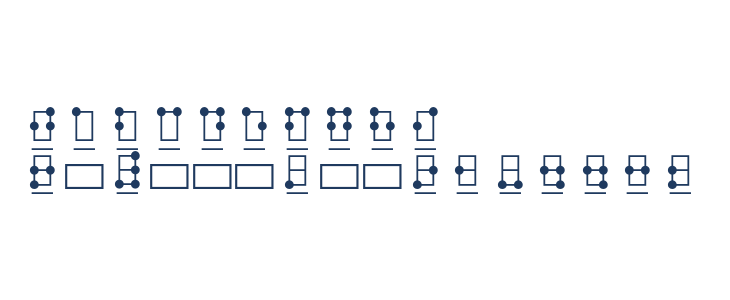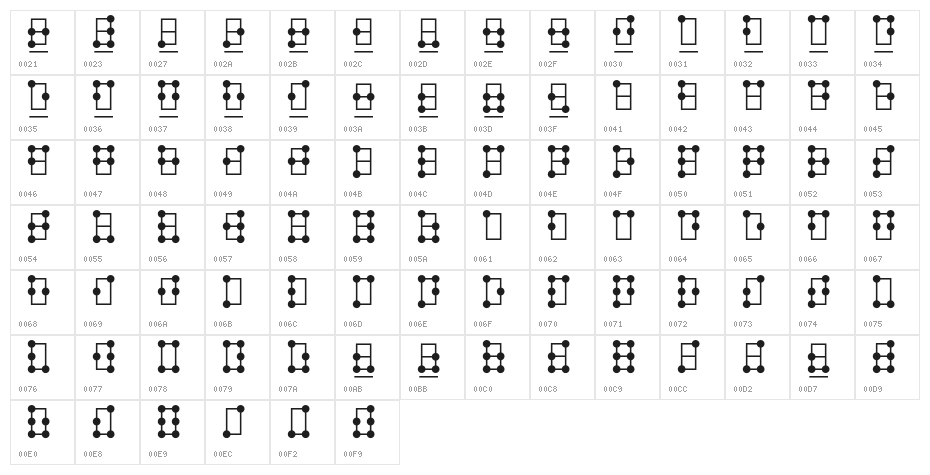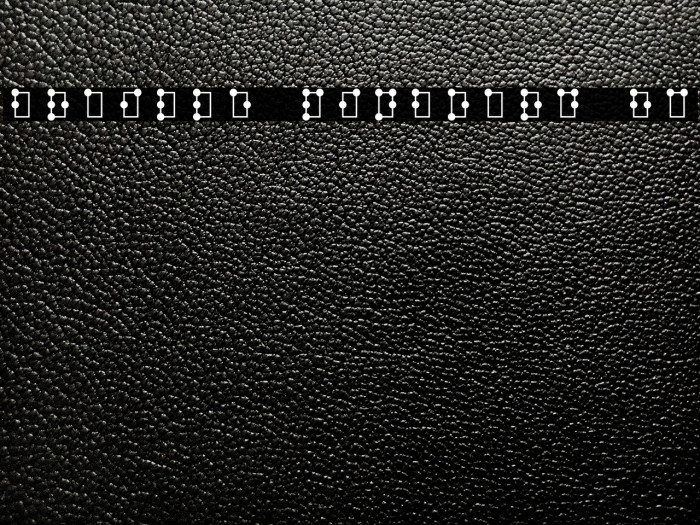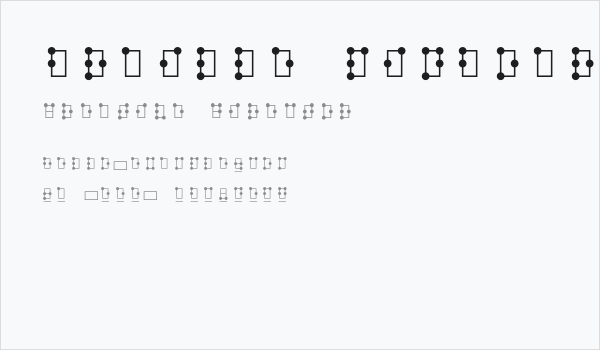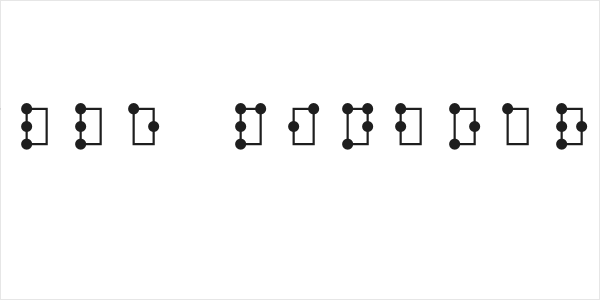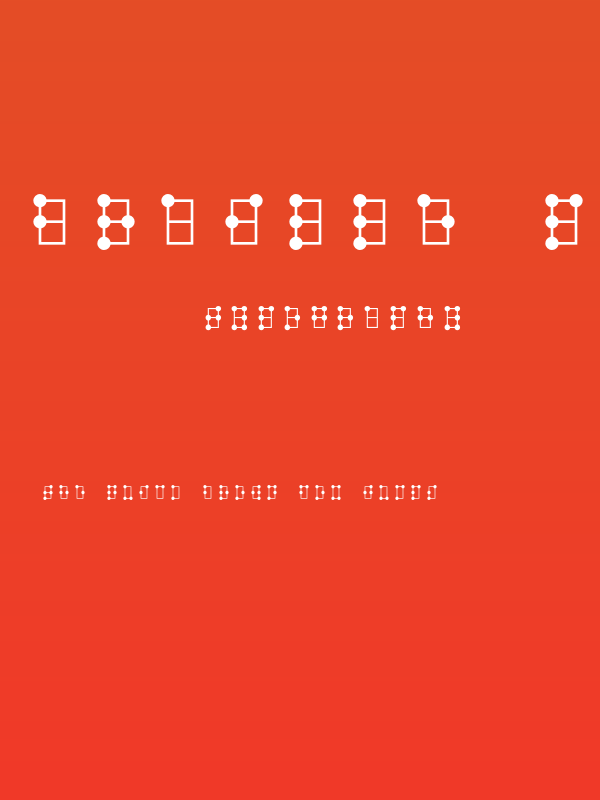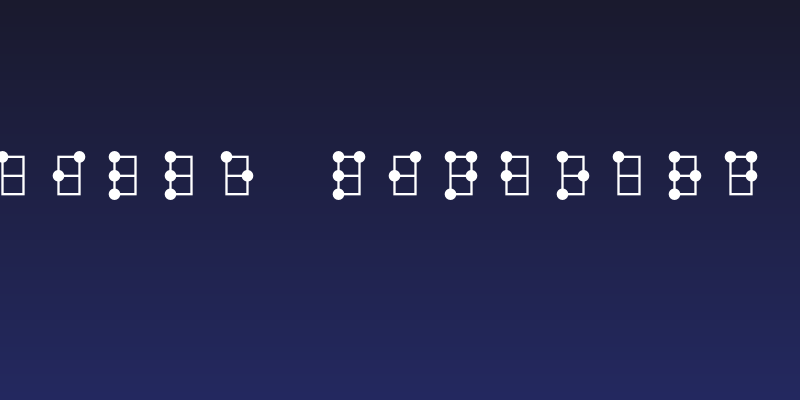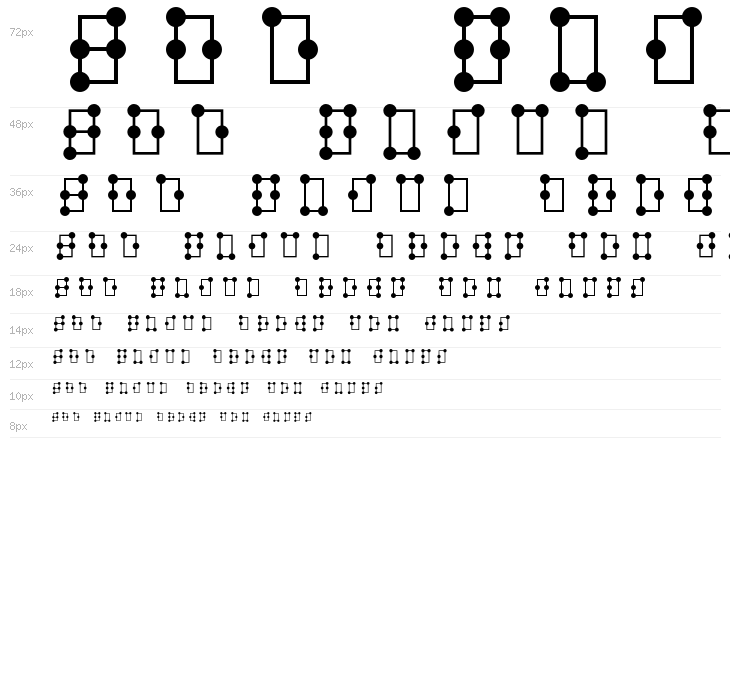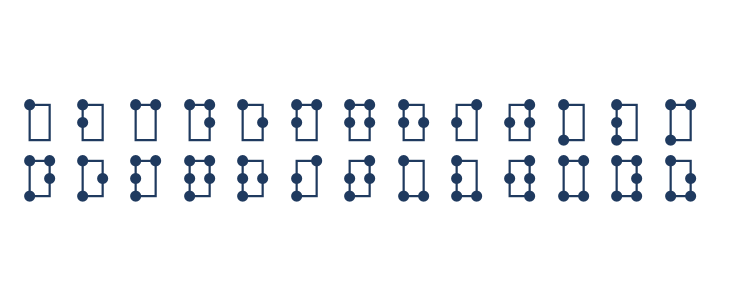
braille pinboard hc Font
braille pinboard hc Description
This is a Braille representation rather than a traditional font. It consists of rectangular cells with raised dots, each cell representing a different character. The design is structured and consistent, with each cell containing up to six dots arranged in a 2x3 grid. This system is tactile and used primarily by visually impaired individuals for reading and writing. The layout is clear and functional, focusing on accessibility and ease of use rather than visual aesthetics.
| Overall Style | Functional |
| Use Case | Accessibility, Educational materials |
| Proposed Projects | Ideal for projects focused on accessibility, such as creating Braille signage, educational materials for the visually impaired, or inclusive product packaging. |